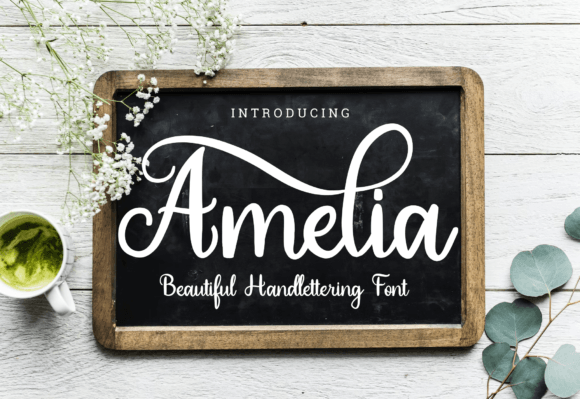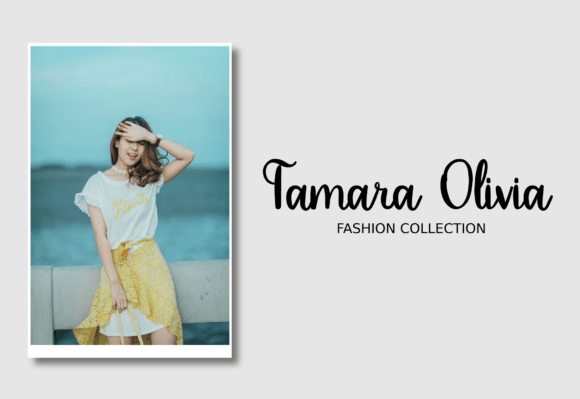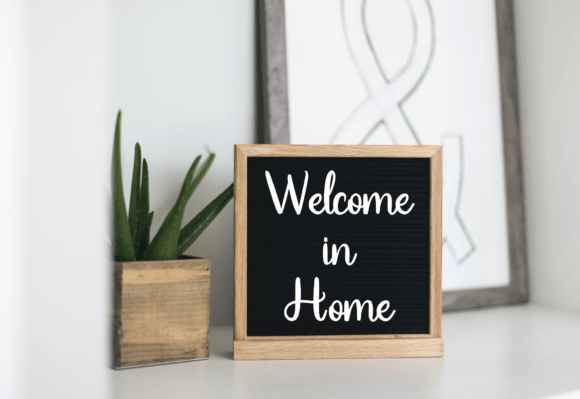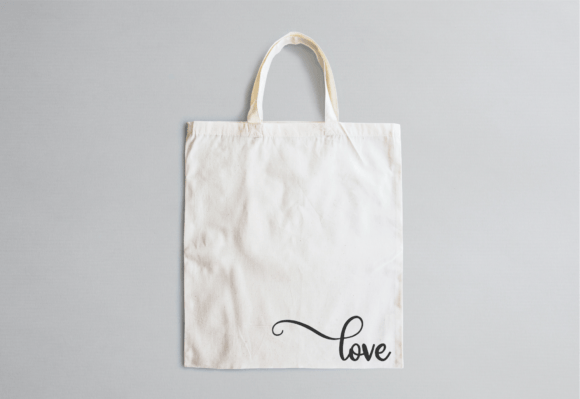
Amelia Font
About Amelia Font
Introducing Amelia, a simple, quirky, and versatile handwritten font that brings an elegant touch to various creative projects. With its unique charm, Amelia is a perfect addition to wedding invitations, business cards, greeting cards, social media posts, wall art, and beyond.
The simplicity of Amelia’s design is its strength, making it easy to integrate into a wide range of design applications. The quirky and handwritten style adds a personal and authentic feel, enhancing the overall charm of your projects.
Consider using Amelia on wedding invitations, where its elegant yet quirky nature can beautifully complement the romantic atmosphere. Picture it on business cards, adding a touch of personality to your professional branding. Envision it on greeting cards, creating a warm and inviting sentiment.
The adaptability of Amelia extends to social media posts, where its unique style can capture attention and convey a sense of creativity. Whether you’re sharing quotes, announcements, or showcasing your products, Amelia ensures your content stands out with a delightful and approachable flair.
Imagine Amelia on wall art, creating a visually appealing and personalized touch to your living space. Its versatility allows you to experiment with various design ideas, making it a valuable asset for creative projects of all kinds.
In summary, Amelia is more than just a font; it’s a creative tool that brings simplicity, quirkiness, and elegance to your projects. Its adaptable nature makes it suitable for a variety of applications, adding a unique and handwritten charm to wedding materials, business collateral, social media content, and more. Let Amelia be the elegant and quirky element that elevates your designs with a touch of authenticity and style!